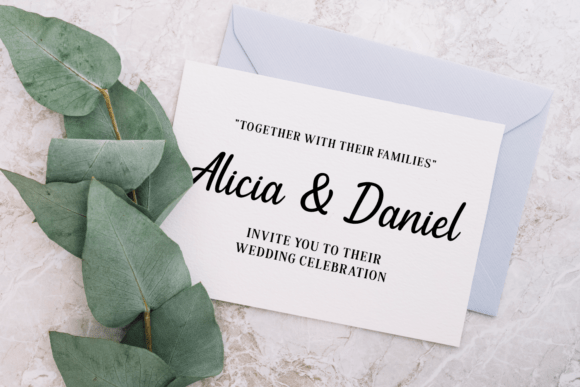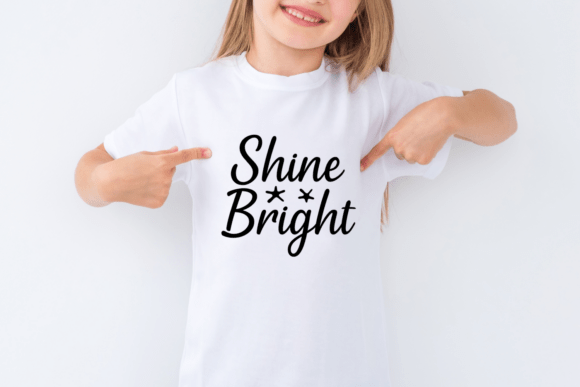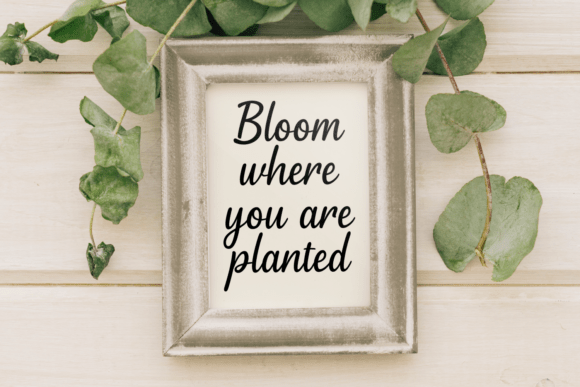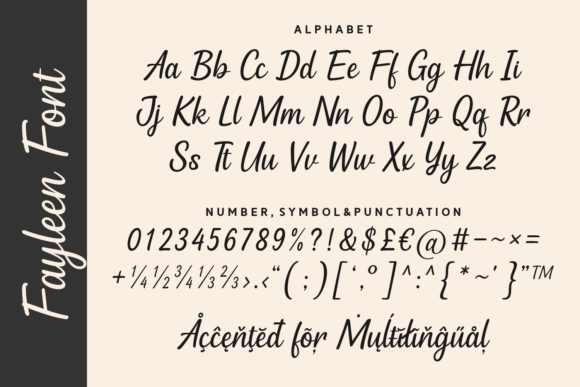
Introduction to Fayleen Font
Do you remember that moment when a single font choice completely transformed the look of your design project? For many designers, it’s a feeling of pure excitement and satisfaction. Today, we’re thrilled to introduce you to Fayleen Font, a smooth, flowing handwritten script that will add a touch of elegance to your next creative project.
With its natural ligatures and gentle personality, Fayleen Font is a lovely choice for lifestyle branding, quotes, or feminine blog titles. Its clean appearance makes it a versatile design resource that can be used in a variety of applications, from digital to print. Whether you’re working on a free download or a high-quality design, Fayleen Font is a valuable addition to your toolkit.
As a valuable design resource, Fayleen Font offers a transparent background, making it easy to layer and combine with other design elements. Whether you’re a seasoned designer or just starting out, Fayleen Font is a must-have for anyone looking to add a touch of sophistication to their creative project.
Honest Review: Fayleen Font
- ✨ Elegant and sophisticated design: The Fayleen Font has a unique, cursive style that adds a touch of elegance to any design project.
- ✨ High quality: The font is well-crafted and has a high level of detail, making it perfect for creative projects that require a premium look.
- ✨ Transparent background: The font’s transparent background makes it easy to use on different backgrounds, giving designers more flexibility.
Overall, I’m impressed with the Fayleen Font, and I think it’s a valuable design resource for creative projects. While it has some limitations, it’s a high-quality font that’s perfect for designers who want to add a touch of elegance to their work.
Tips for Getting the Most Out of Fayleen Font
Fayleen Font is ideal for use in creative projects such as graphic design, digital art, and typography. Its unique design makes it perfect for use in branding, logos, and advertisements.